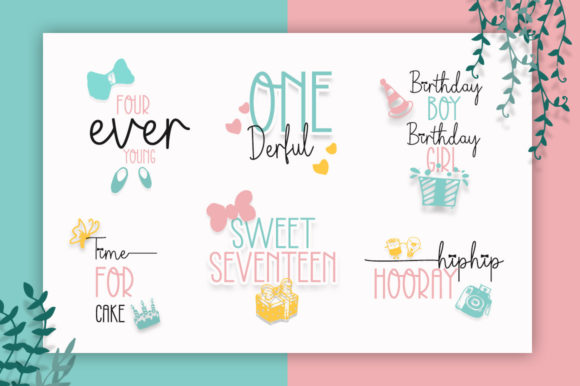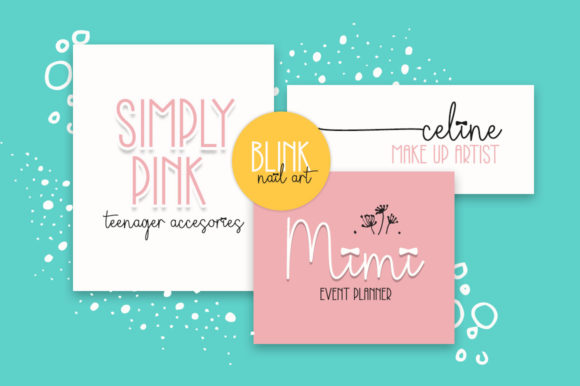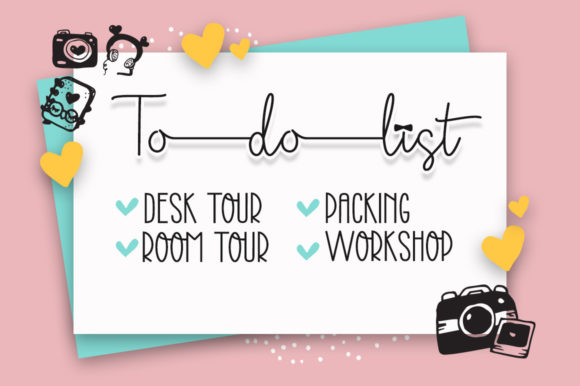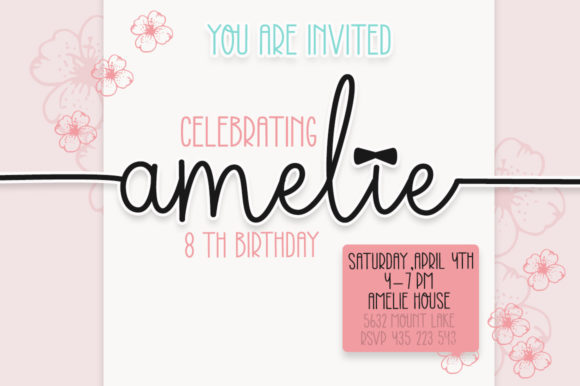
Introducing Girl Boy Font: The Elegant and Dainty Duo for Crafty Designs
Are you a designer or crafter looking for a unique and elegant font to elevate your creative projects? Look no further than the Girl Boy Font, a beautiful duo font that combines the best of handwritten and sans serif styles. This stunning font features sweet and delicate swashes, perfect for adding a touch of sophistication to your designs.
A Perfect Blend of Handwritten and Sans Serif
The Girl Boy Font is a thoughtfully crafted duo font that brings together the charm of handwritten script and the cleanliness of sans serif typography. The handwritten font is elegant and fluid, with a subtle touch of whimsy, while the sans serif font provides a crisp and modern contrast. This versatile combination makes Girl Boy suitable for a wide range of design applications, from letterheads and titles to stationery and more.
Sweet and Delicate Swashes
One of the standout features of the Girl Boy Font is its beautiful swashes. These delicate flourishes add a touch of elegance and sophistication to your designs, making them perfect for special projects such as wedding stationery, branding, and packaging. The swashes are carefully crafted to complement the font’s handwritten and sans serif styles, creating a cohesive and polished look.
The Girl Boy Font is PUA (Private Use Area) encoded, which means that you can access all of the glyphs and swashes with ease. This encoding allows you to unlock the full potential of the font, making it simple to use and customize. Whether you’re a seasoned designer or a crafty beginner, the PUA encoding ensures that you can get the most out of the Girl Boy Font.
Ideal for Crafty Ideas
The Girl Boy Font is perfect for crafty designers and makers who want to add a personal touch to their projects. Whether you’re creating handmade cards, scrapbooking pages, or bespoke stationery, this font is sure to inspire your creativity. The elegant and dainty design makes it ideal for:
- Letterheads and titles
- Stationery and greeting cards
- Branding and packaging
- Wedding and event planning
- DIY crafts and scrapbooking
Why Choose Girl Boy Font?
With so many fonts available, why choose Girl Boy? Here are just a few reasons why this font stands out:
- Unique and original design: The Girl Boy Font is a one-of-a-kind duo font that will set your designs apart from the crowd.
- Versatile and adaptable: The font’s combination of handwritten and sans serif styles makes it suitable for a wide range of design applications.
- Elegant and sophisticated: The sweet and delicate swashes add a touch of luxury to your designs, making them perfect for special projects.
- Easy to use: The PUA encoding ensures that you can access all of the glyphs and swashes with ease, making it simple to customize and use.